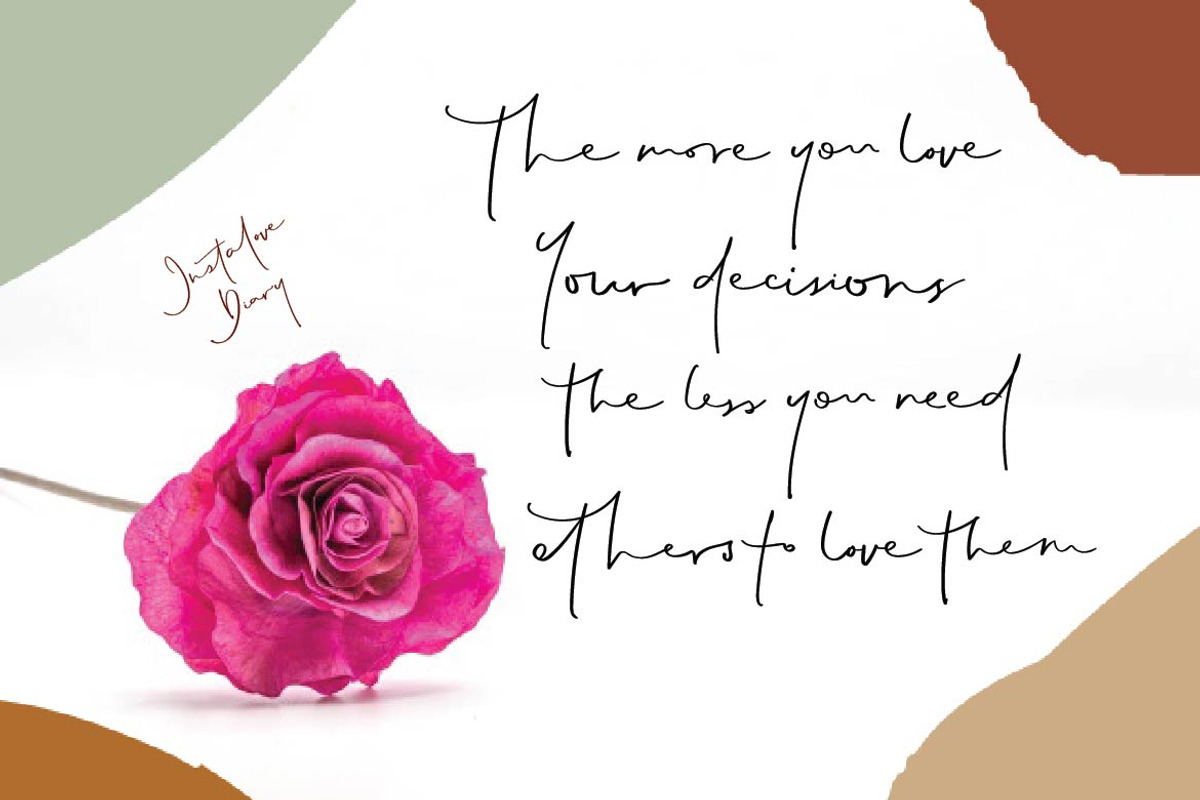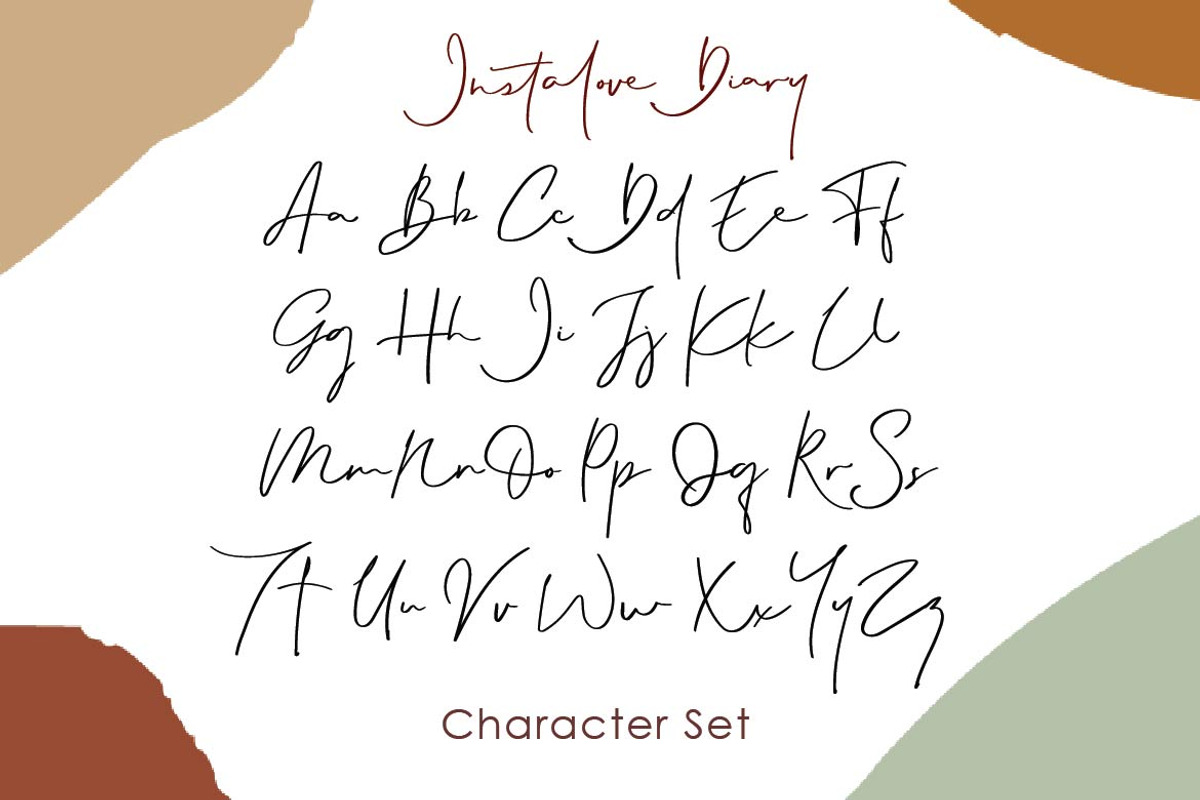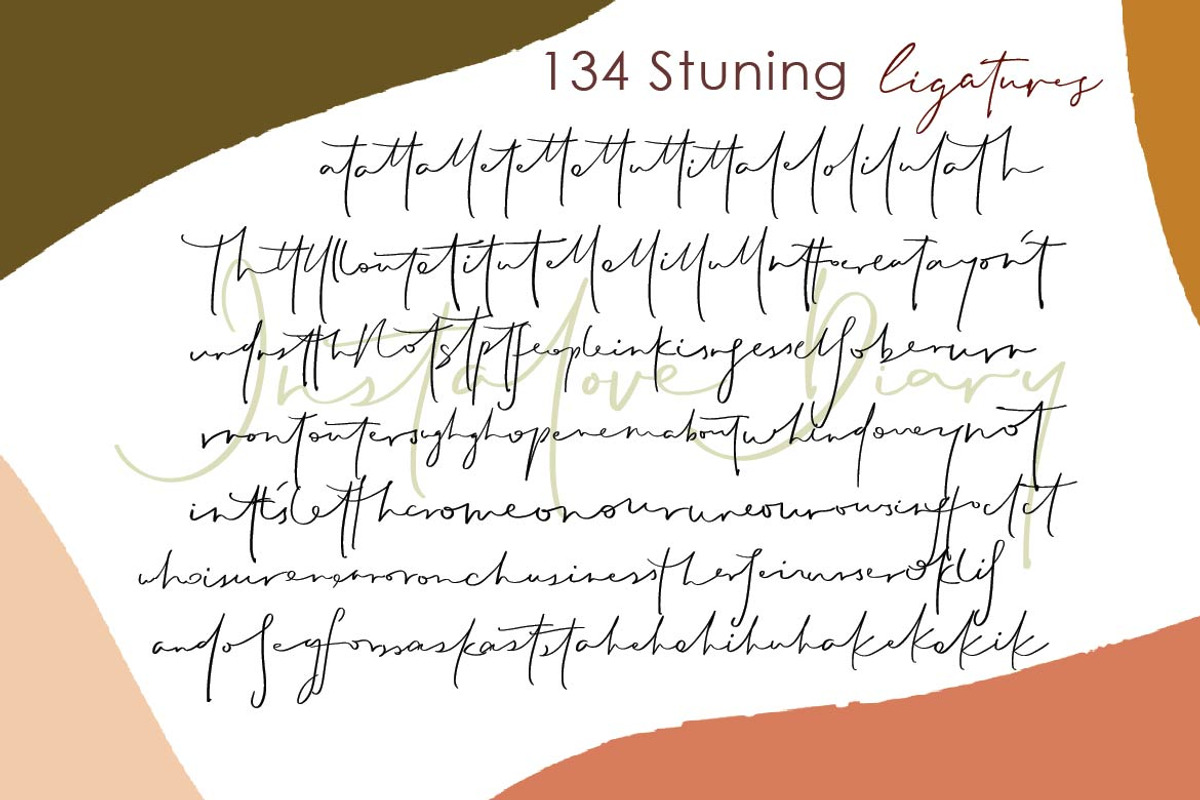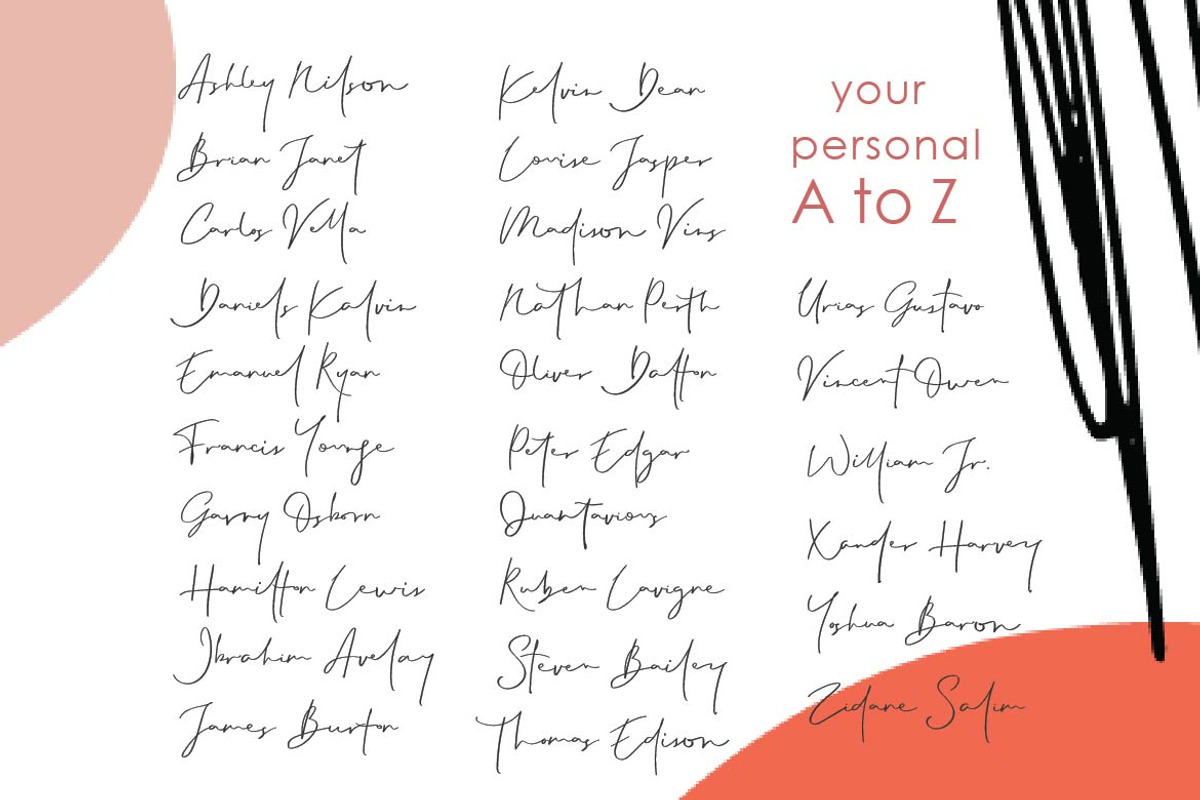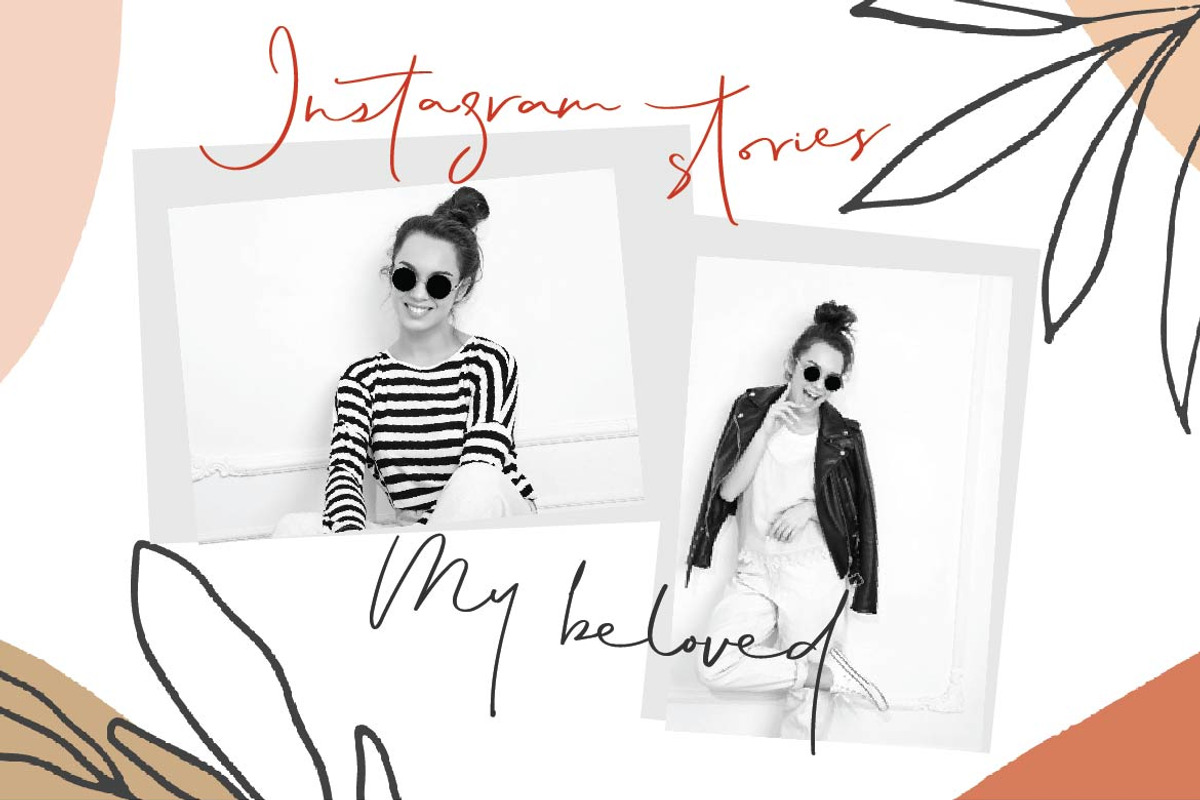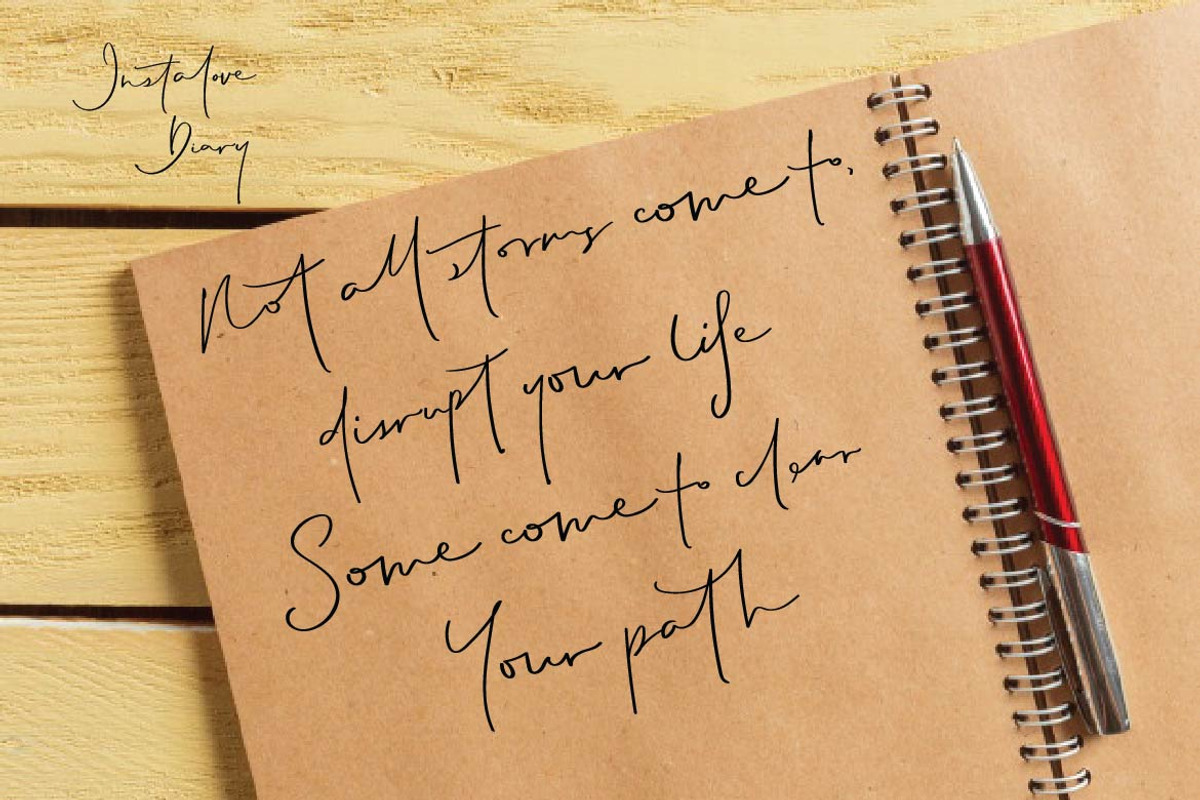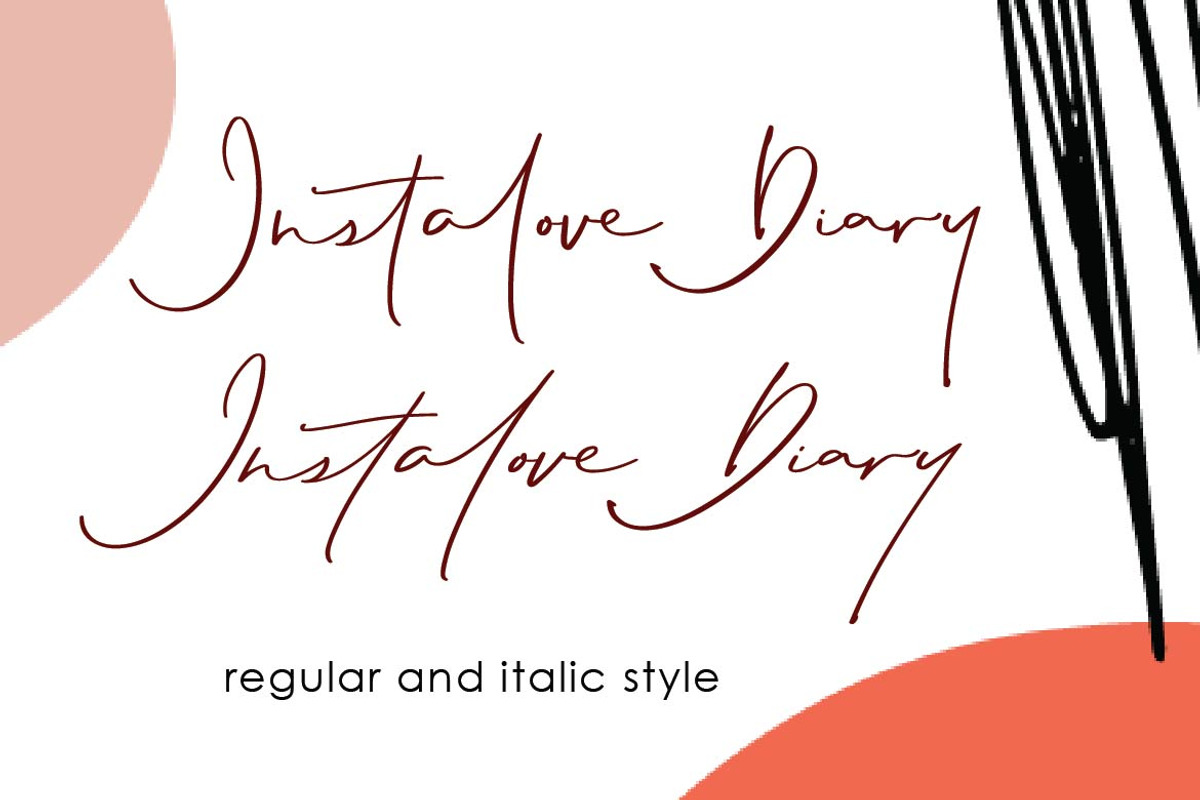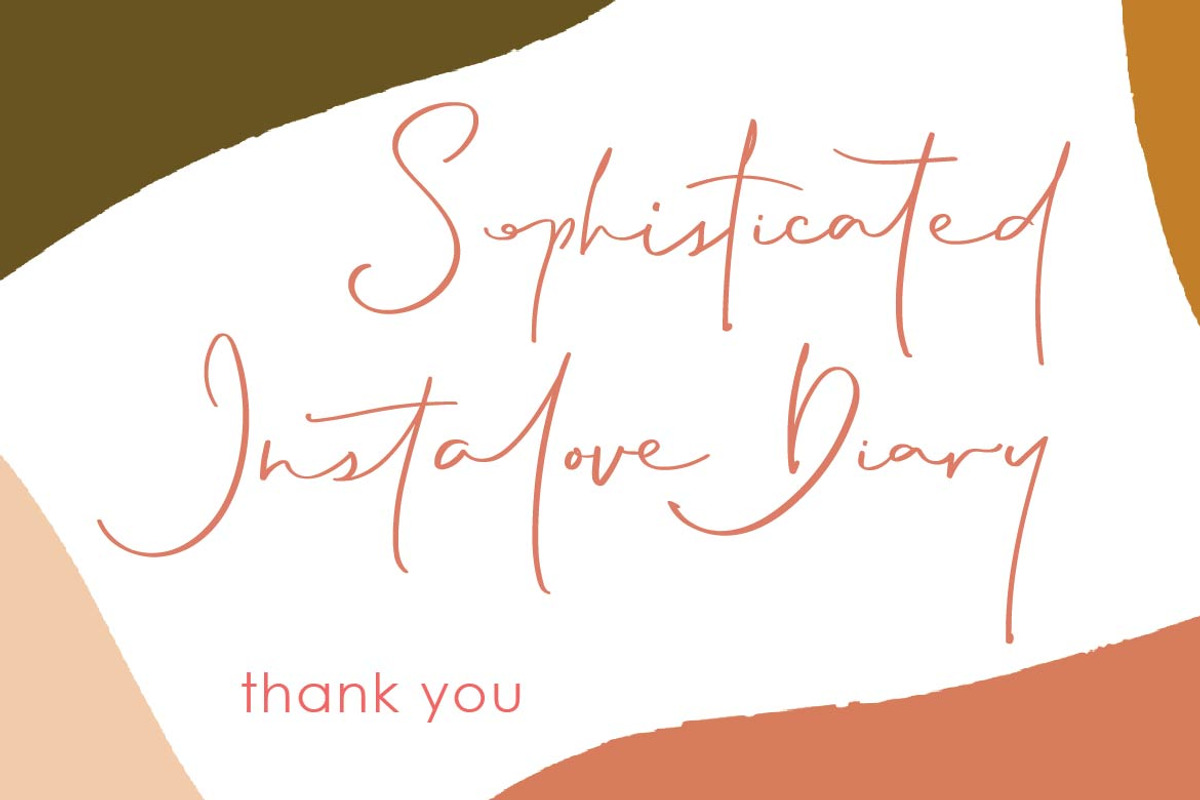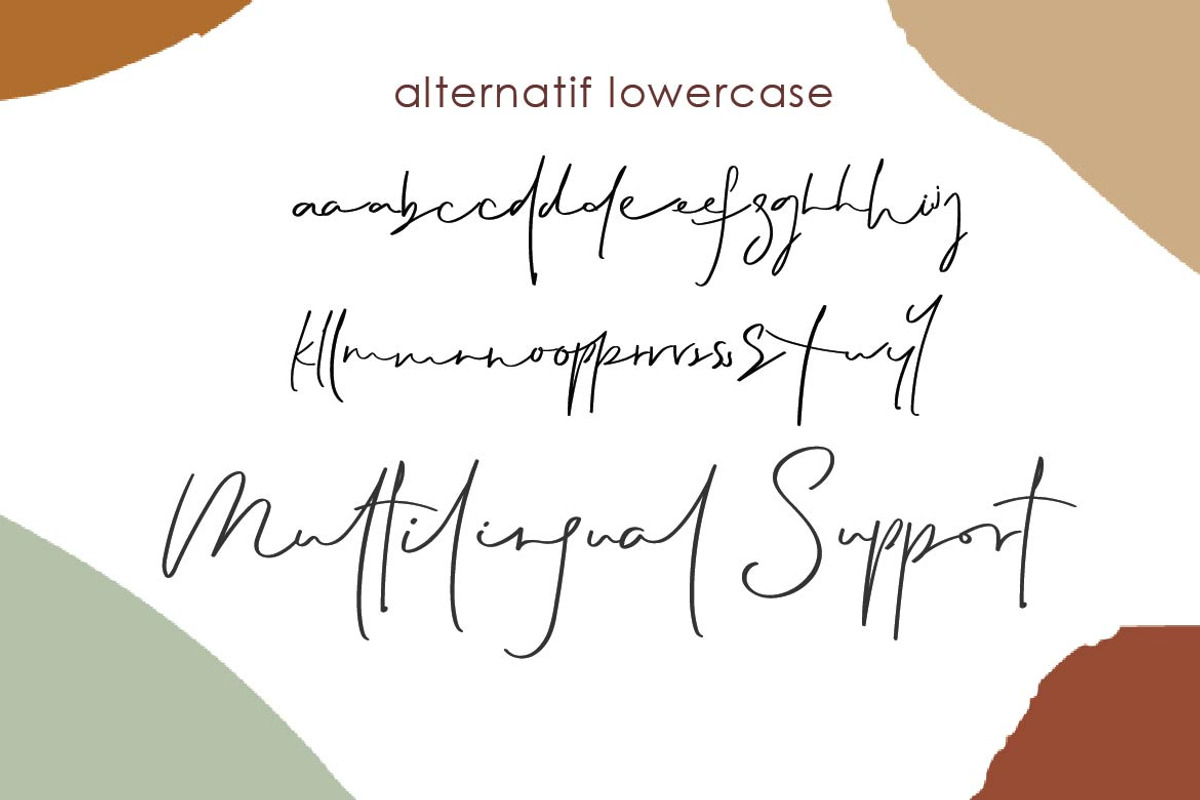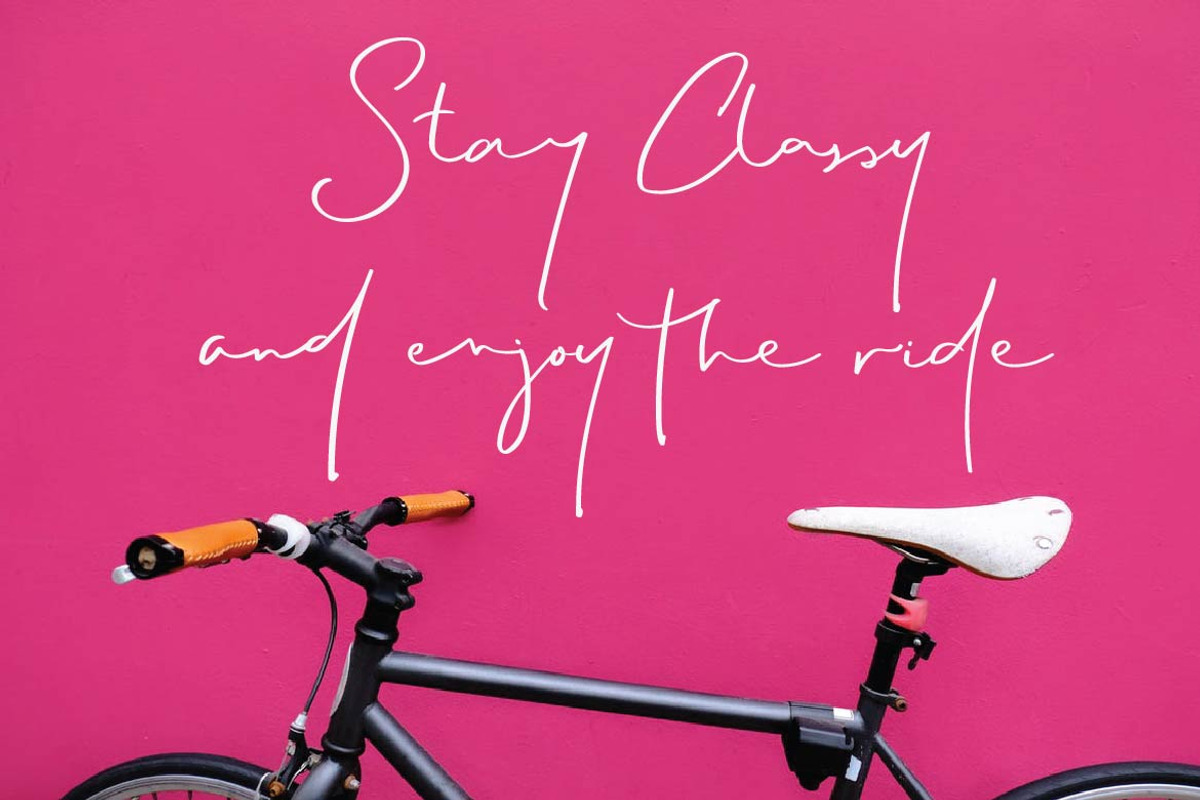
Instalove Diary
The new "Instalove Diary" font. A fashionable new handwriting font with sexy stylish.
Instalove Diary font was created to look as close to a natural handwritten script as possible by including over 134 ligatures, and lowercase alternates.Comes with two styles of Regular and Italic. Mix and match lowercase regular with several lowercase alternatives to get your new ligature. Perfect for any awesome projects that need hand writing taste.
With built in Opentype features, this script comes to life as if you were writing it yourself.